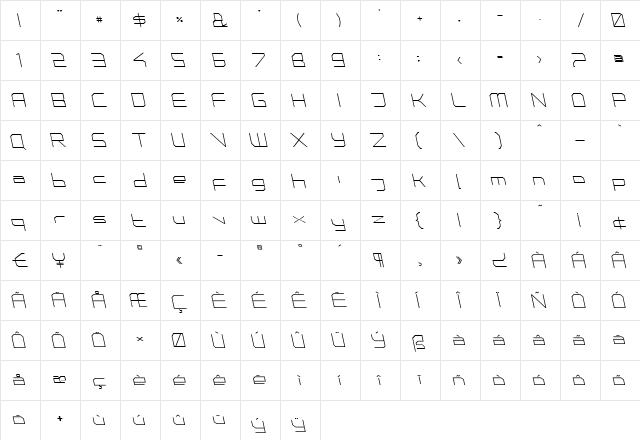
PhutureSqrdClsd Italic
Design Context for PhutureSqrdClsd Typeface
PhutureSqrdClsd offers clean, dependable letterforms without strong stylistic allegiance, making it a practical choice for designers who need flexibility. The dynamic lean of this cut emphasises speed and emphasis in any layout.
Pro Tip: Try PhutureSqrdClsd for annotation and caption copy alongside an upright companion — the contrast in angle creates a dynamic but ordered typographic system.